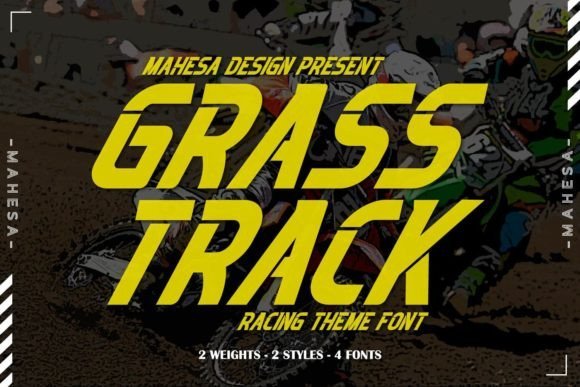
Introduction to Grasstrack Font
Grasstrack is a strong and assertive display font.
Add this cool and neat typeface to each of your creative ideas and notice how it makes them stand out .
Key Features of Grasstrack Font
Why Choose Grasstrack Font?
Grasstrack Font offers exceptional quality and versatility, making it a valuable addition to your design toolkit. Whether you’re creating for personal projects or commercial use, Grasstrack Font delivers professional results.